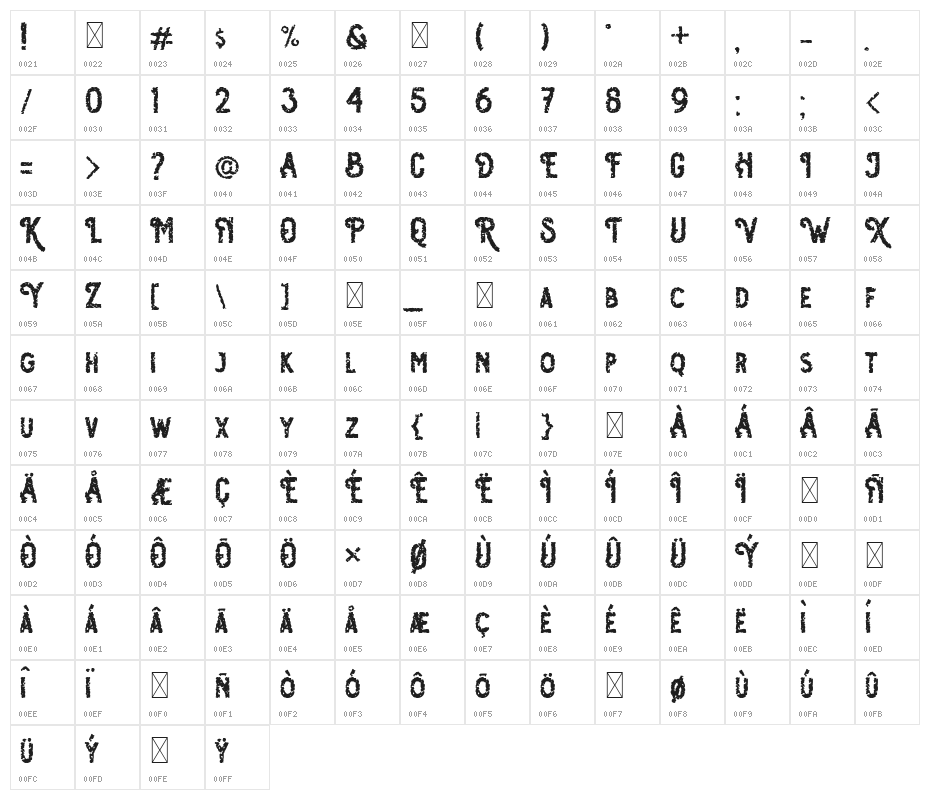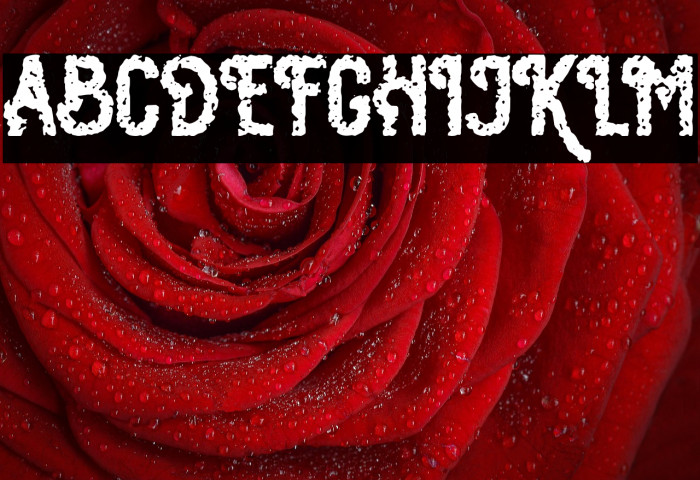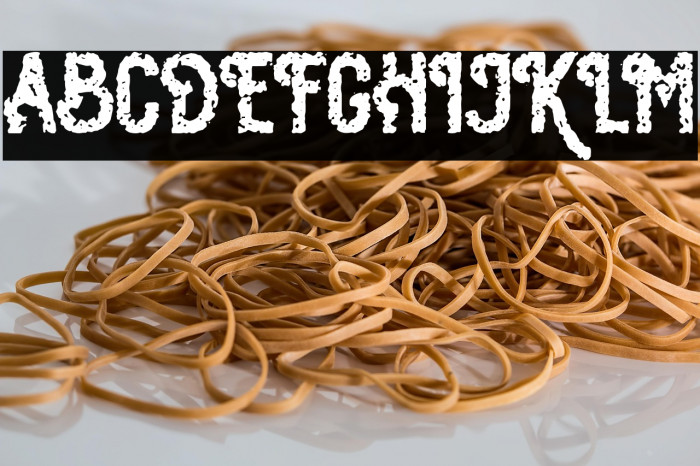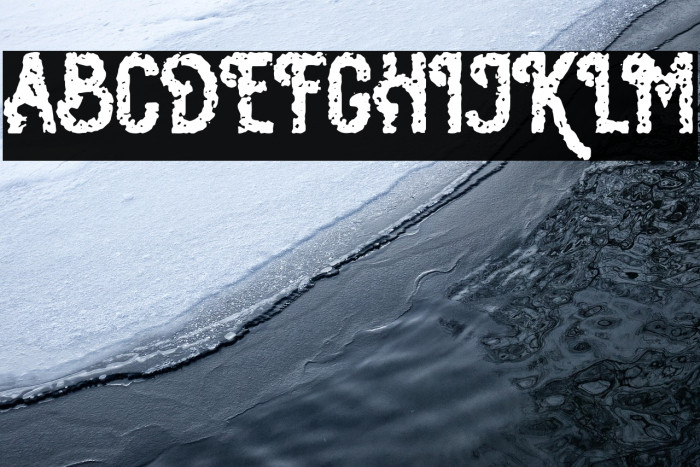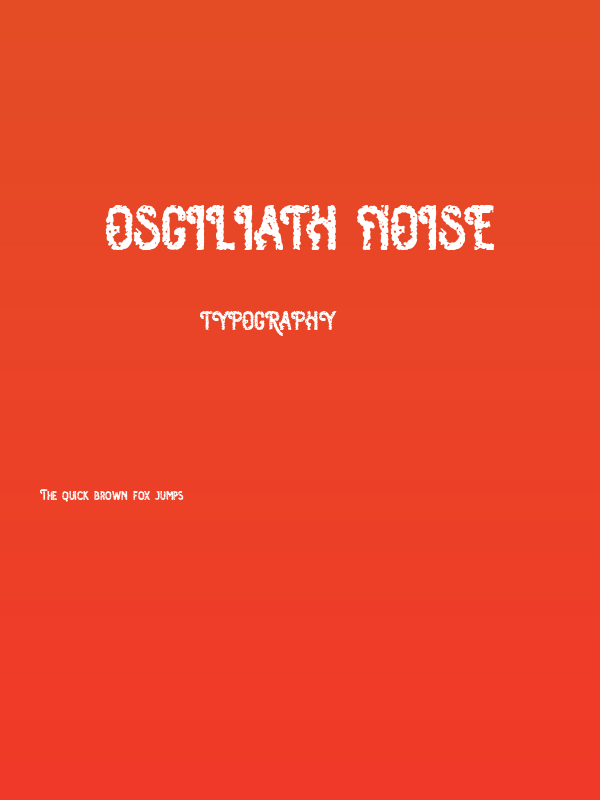
Osgiliath Noise Font
Osgiliath Noise Description
This font features a rugged, distressed appearance, giving it a unique and edgy style. The characters are bold and heavily textured, resembling a weathered or eroded surface. The uppercase and lowercase letters maintain a consistent design, with each character exhibiting a rough, uneven outline. Numbers and special characters follow the same aesthetic, ensuring a cohesive look across all glyphs. The font's overall appearance is striking and attention-grabbing, making it ideal for projects that require a bold statement.
| Proposed Projects | Ideal for album covers, posters, branding for extreme sports, or any project needing a gritty, impactful look. |